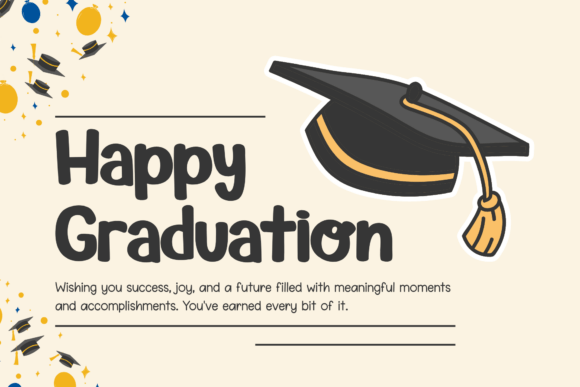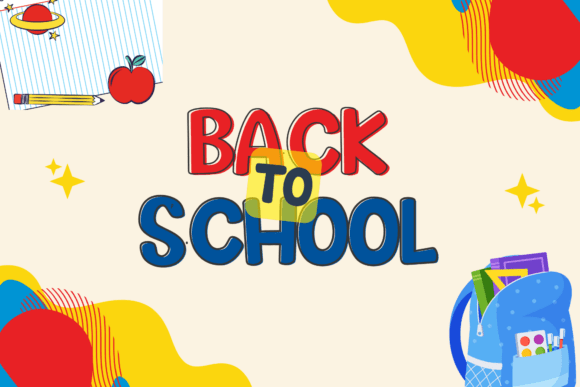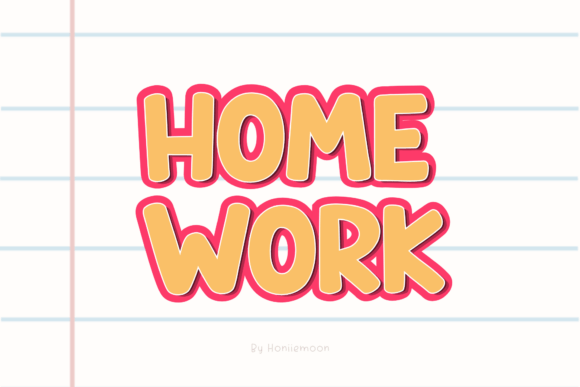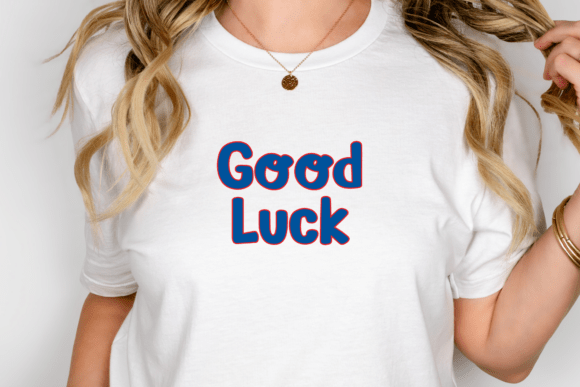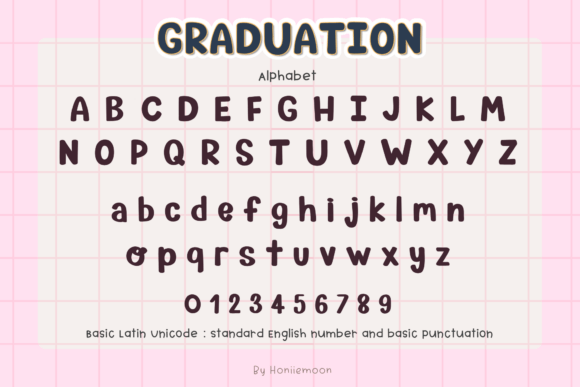
Introducing Graduation Handwritten Font: The Perfect Blend of Playfulness and Sophistication
Are you an educator, craft enthusiast, or digital designer looking to add a touch of light-hearted creativity to your projects? Look no further than the Graduation Handwritten Font. This unique and charming typeface is designed to bring a sense of warmth, personality, and accessibility to your creations, making it the perfect choice for classroom resources, customized gifts, and vibrant social media visuals.
A Harmonious Blend of Style and Legibility
The Graduation Handwritten Font is more than just a typeface – it’s an artistic statement. With its rounded, legible style and playful aesthetic, this font is sure to delight audiences of all ages. Whether you’re creating educational materials, crafting personalized gifts, or designing engaging social media content, this font is the perfect choice. Its unique blend of sophistication and playfulness will set your projects apart and leave a lasting impression.
Key Features of Graduation Handwritten Font
- Diverse Character Set: This font features a diverse range of uppercase and lowercase letters, numbers, and punctuation, giving you the flexibility to create a wide variety of projects.
- Rounded and Legible Style: The rounded, legible style of the Graduation Handwritten Font makes it perfect for use in classroom resources, educational materials, and other projects where clarity is key.
- Playful yet Sophisticated Aesthetic: The playful aesthetic of this font is balanced by a sophisticated charm, making it suitable for a wide range of projects and audiences.
Unlock Endless Creative Possibilities
With the Graduation Handwritten Font, the creative possibilities are endless. Imagine being able to:
- Create eye-catching classroom resources that engage and inspire students
- Design personalized gifts and crafts that showcase your unique style
- Develop vibrant social media visuals that capture the attention of your audience
- Craft educational materials that are both informative and fun to read
Why Choose Graduation Handwritten Font?
So why choose the Graduation Handwritten Font for your next project? Here are just a few reasons:
- Unique and Charming Aesthetic: This font features a unique and charming aesthetic that will set your projects apart from the crowd.
- Highly Legible: The rounded, legible style of the Graduation Handwritten Font makes it perfect for use in projects where clarity is key.
- Versatile: This font is suitable for a wide range of projects and audiences, from educational materials to social media visuals.
In conclusion, the Graduation Handwritten Font is the perfect choice for educators, craft enthusiasts, and digital designers looking to add a touch of light-hearted creativity to their projects. With its unique and charming aesthetic, rounded and legible style, and versatile character set, this font is sure to delight audiences of all ages. So why wait? Download the Graduation Handwritten Font today and unlock a world of creative possibilities!
Whether you’re creating educational materials, crafting personalized gifts, or designing engaging social media content, the Graduation Handwritten Font is the perfect choice. Its playful yet sophisticated aesthetic, combined with its highly legible style and versatile character set, make it the ultimate font for anyone looking to add a touch of creativity and personality to their projects.
So go ahead, get creative, and make your mark with the Graduation Handwritten Font!